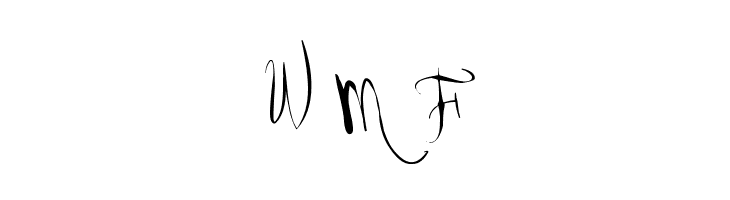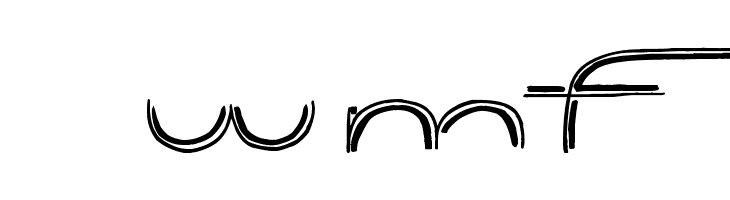
A bold, grungy font with a distressed, brush-painted look.
A bold, edgy font with sharp, angular strokes and a rebellious, graffiti-like style.
A bold, edgy font with sharp, jagged edges resembling claw marks.
A dot matrix font with a digital, retro aesthetic.
A playful, cartoon-like decorative font with unique character designs.
A display font composed of iconic beverage and beer brand logo designs.
A bold, distressed font with a scratchy, rugged texture.
A bold, textured font with a playful, vintage style.
A serif font with a unique, dotted, half-faded texture.
A playful, bold handwritten font with thick, uneven strokes and a whimsical touch.
A playful, decorative font with circular motifs, ideal for eye-catching designs.
A set of bold, geometric helmet icons with a modern, futuristic style.
A decorative font with abstract, tribal-inspired designs and intricate patterns.
A bold, playful, and hand-drawn font with a friendly and decorative style.
A bold, outlined font with a futuristic and dynamic style.
A bold, brush-stroke style font with a rugged, handcrafted appearance.
A bold, cracked texture font with a mosaic-like appearance.
A geometric, multi-line decorative font with a modern, futuristic style.
A playful, doodle-patterned font with bold, rounded characters.
A decorative font with a geometric, triangular pattern creating each character.
A whimsical and artistic font with flowing, irregular strokes and dynamic forms.
A playful, crayon-like font with textured, hand-drawn strokes.
A dynamic and fluid script font with elegant, flowing letterforms.
A bold, brush-style font with dynamic and expressive strokes.
A futuristic and sleek font with elongated, curved letterforms.
A dynamic, brush-style font with expressive, hand-drawn strokes.
A whimsical, hand-drawn font with a playful, squiggly style.
A dynamic, brush-stroke font with expressive and artistic flair.